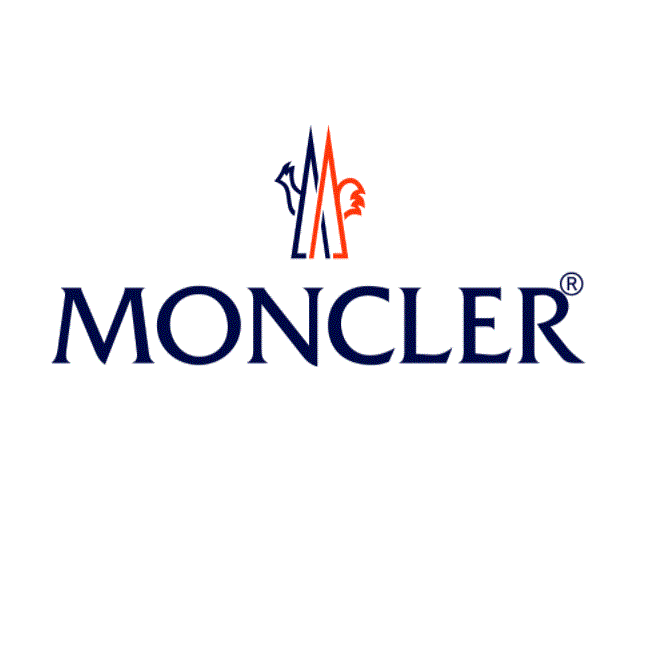
Moncler Logo Font
The Moncler apparel brand uses Friz Quadrata for its logo. The glyphic typeface Friz Quadrata was created by Ernst Friz in 1965 and later enhanced by Victor Caruso and Thierry Puyfoulhoux. The design of the lowercase letters "a," "b," "d," and "q" have unusual open bowls and flared serifs.